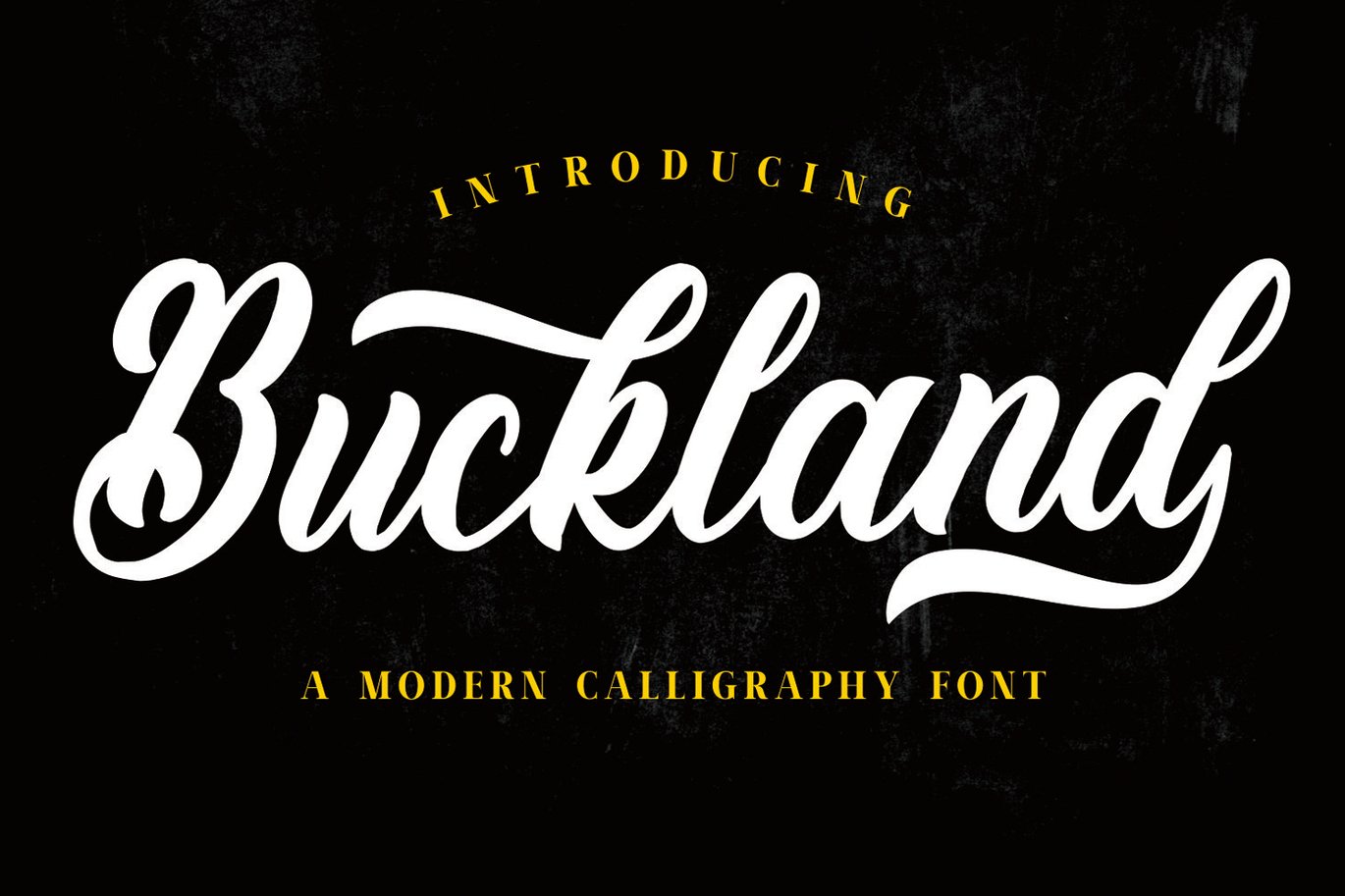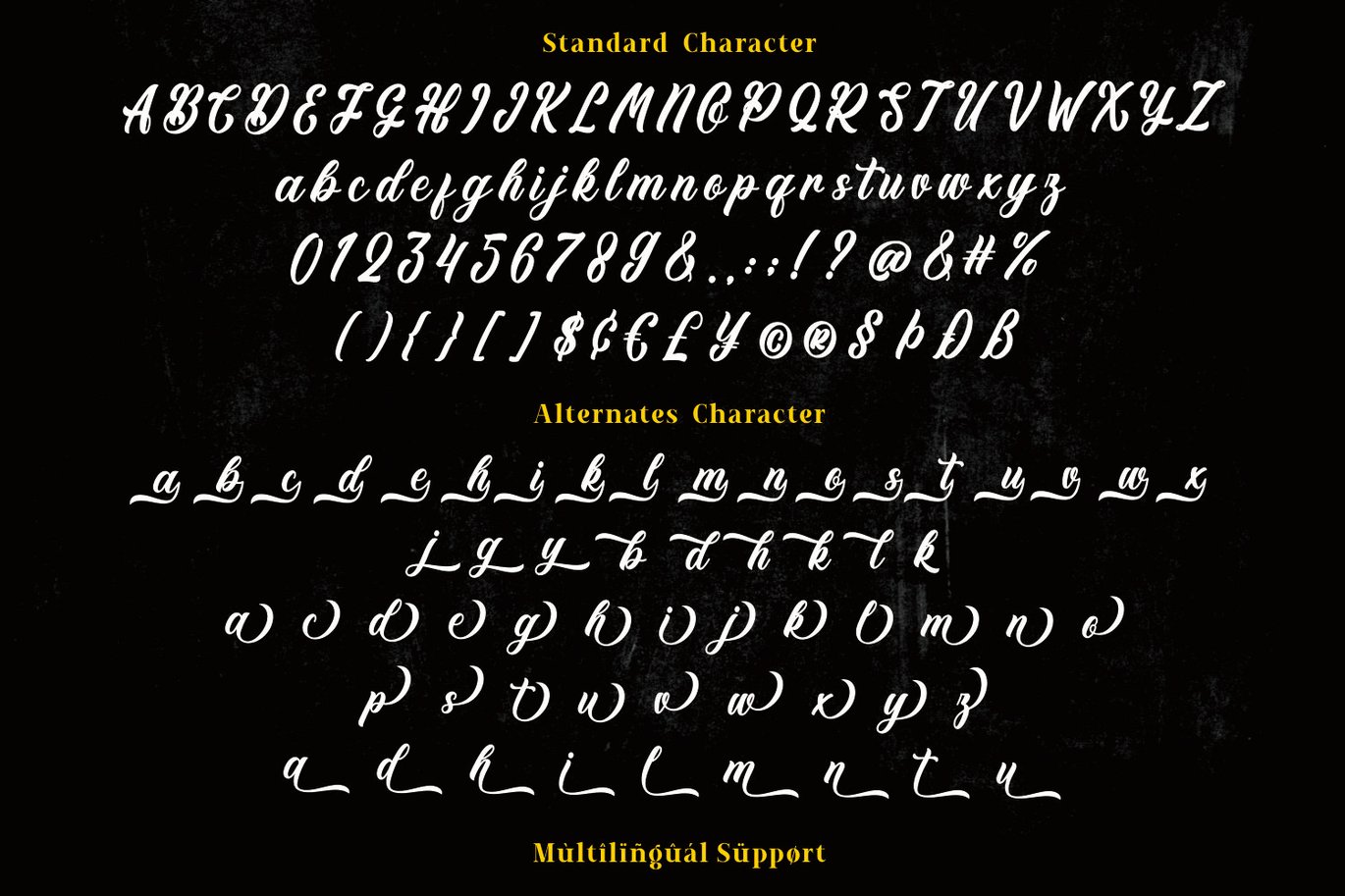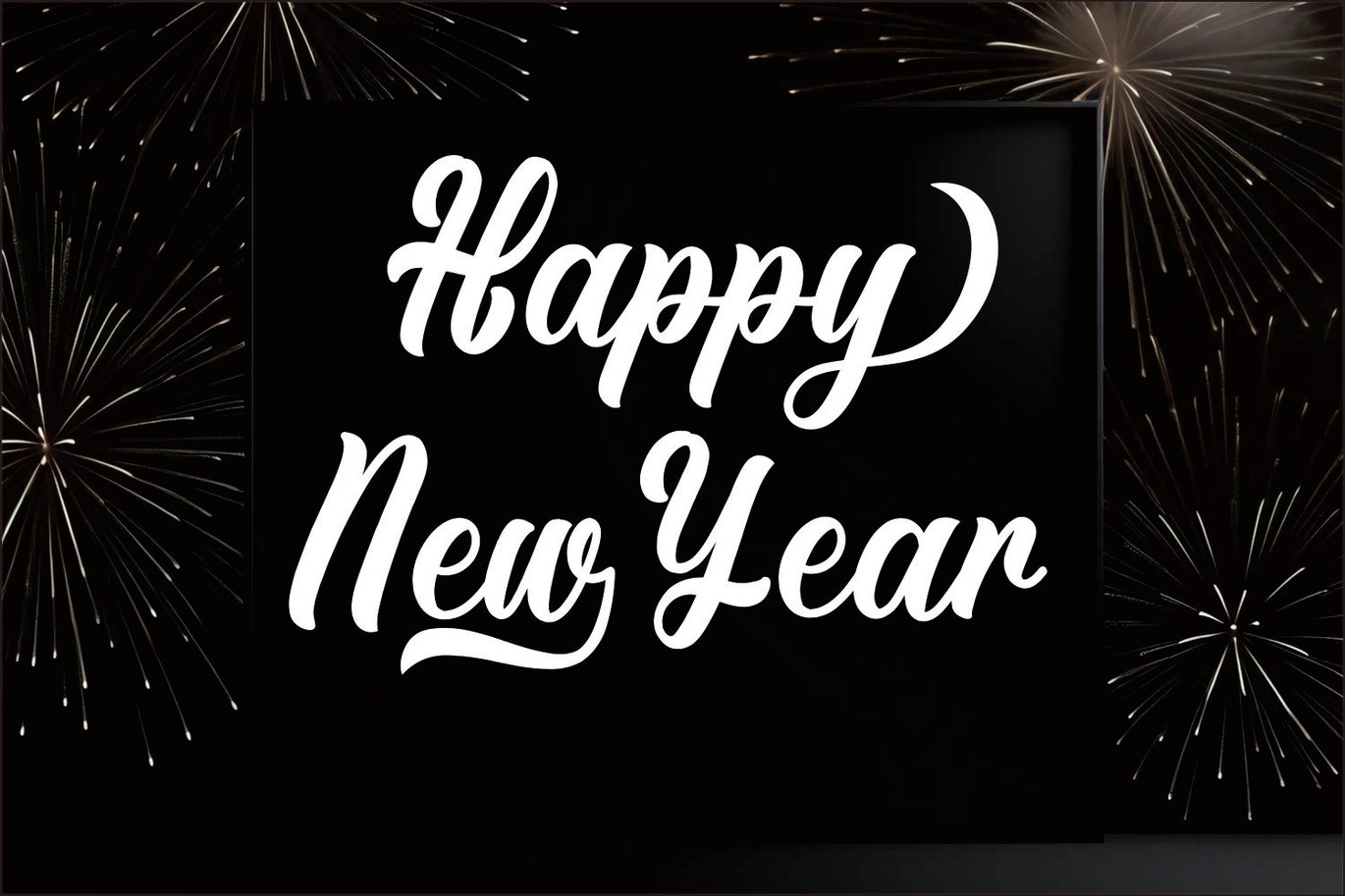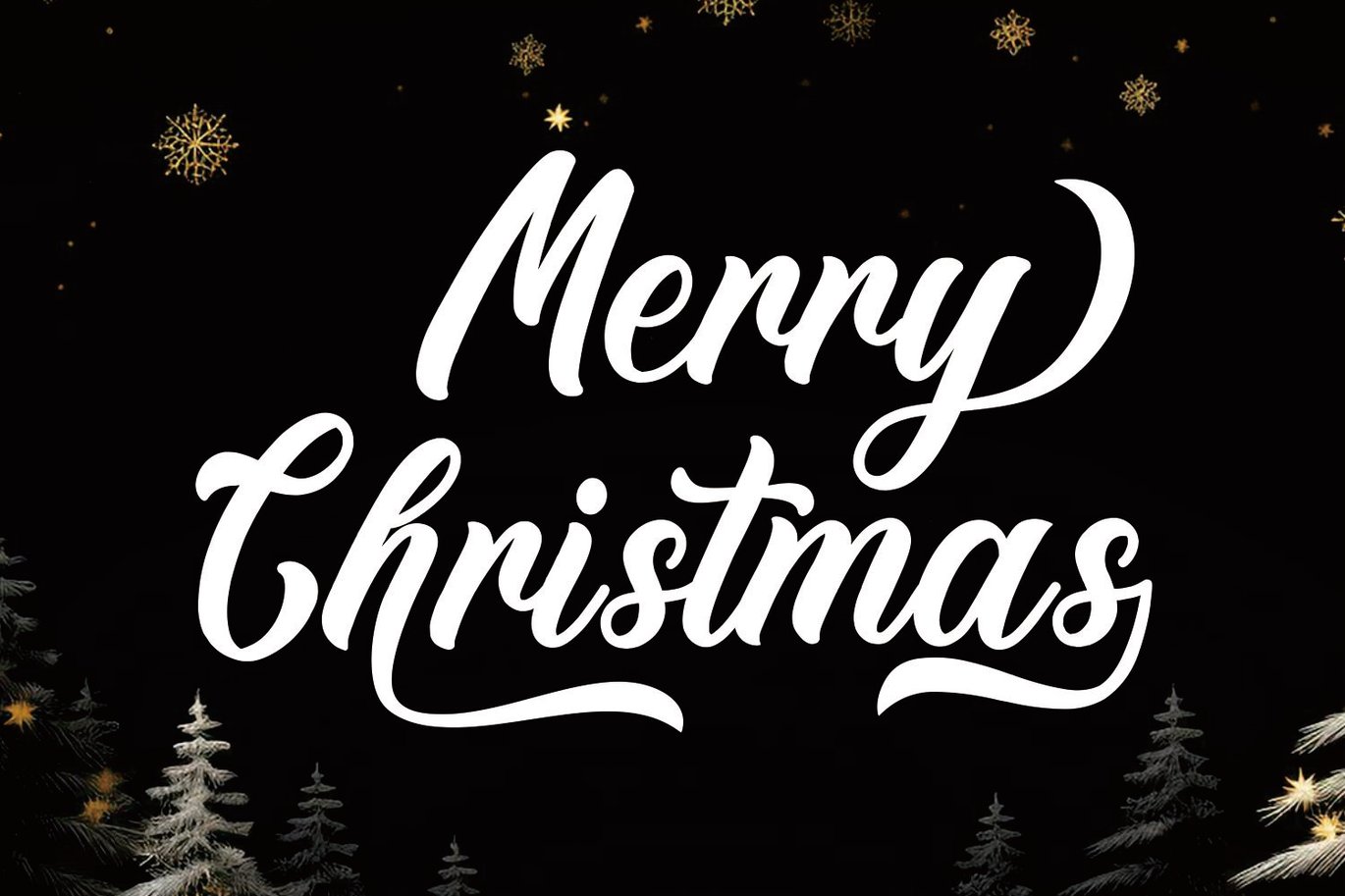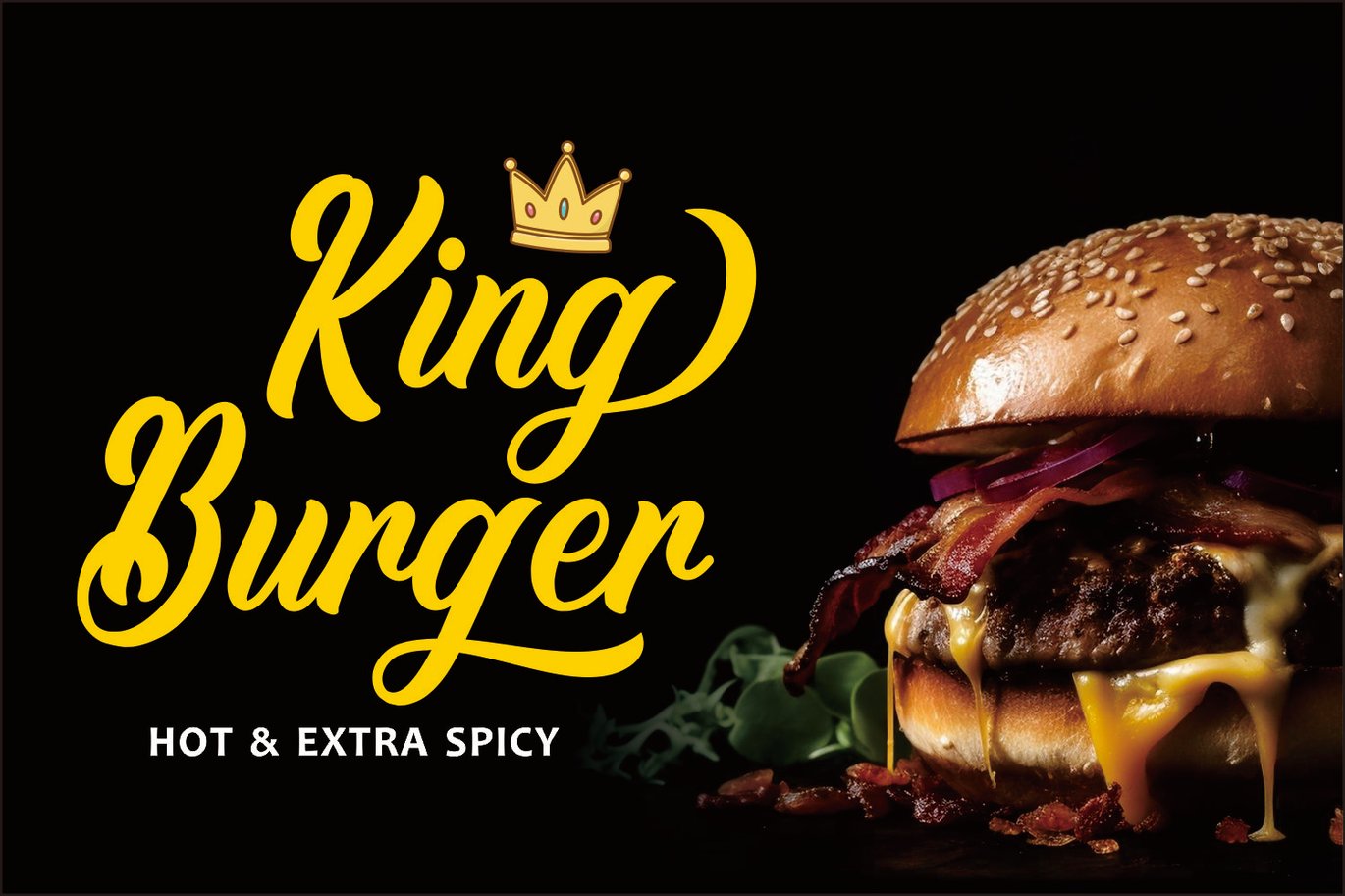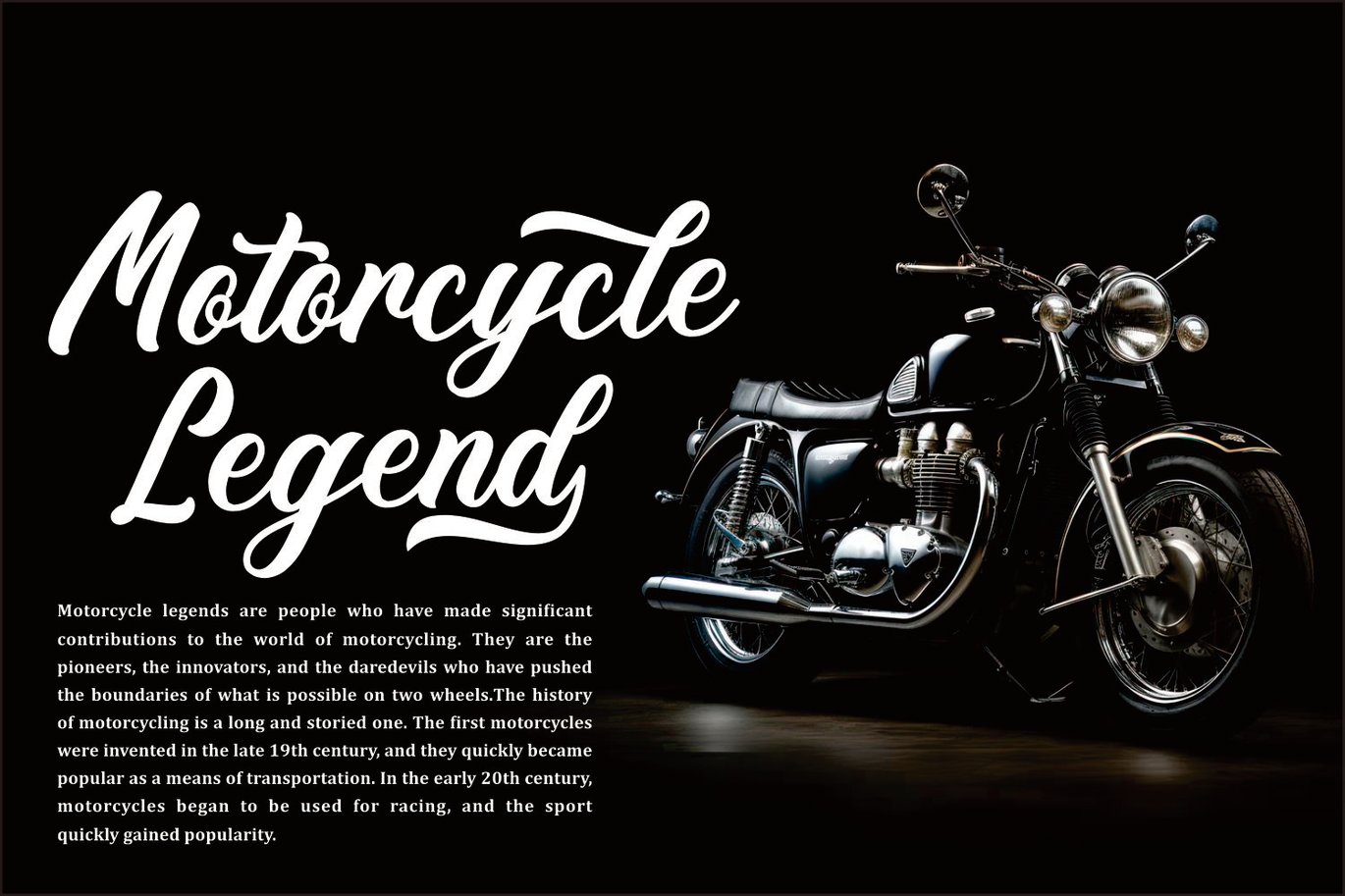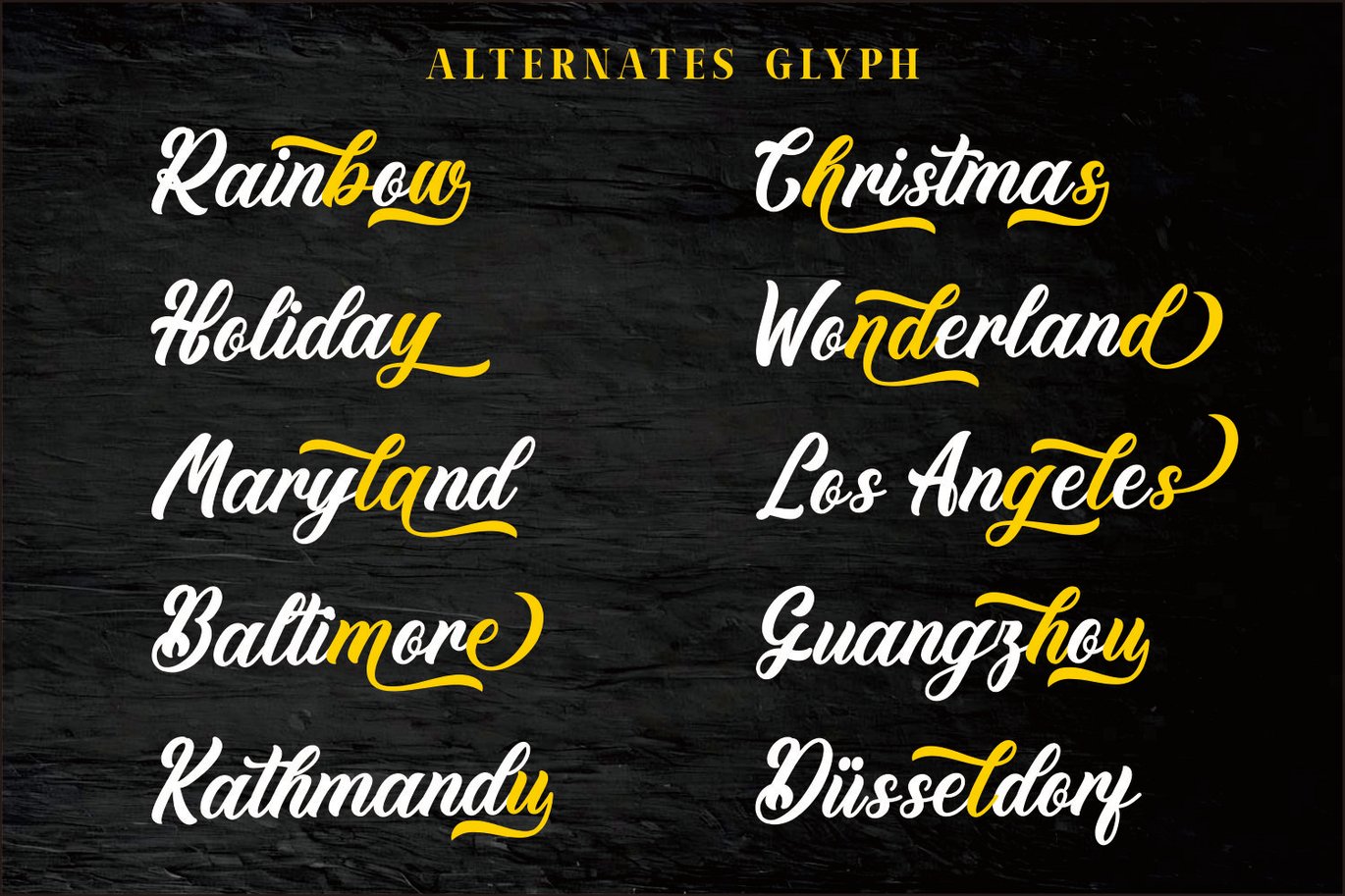
Buckland – Vintage Font
Introducing Buckland Font, a captivating blend of retro and vintage aesthetics infused with classic handwritten script style. Perfect for crafting timeless logos, evoking nostalgia with retro-themed writings, and adding a touch of vintage charm to your embroidery projects. Buckland Font effortlessly captures the essence of bygone eras, making it an ideal choice for Thanksgiving greetings, festive Christmas designs, and crafting personalized letterings that exude warmth and character.
Embrace the allure of yesteryears with Buckland Font and elevate your designs with its authentic retro appeal. Whether you’re crafting a nostalgic logo, adding a vintage touch to your holiday greetings, or embarking on a creative journey of craft lettering, this font offers endless possibilities. Don’t miss out on the opportunity to infuse your projects with timeless elegance and vintage flair. Download Buckland Font today and embark on a journey to rediscover the charm of classic handwritten script in a retro-inspired style!
Transform your creations into timeless masterpieces with Buckland Font. Embrace the essence of retro and vintage aesthetics to craft captivating designs that stand the test of time. Elevate your projects with the charm of classic handwritten script, perfect for adding a touch of nostalgia to Thanksgiving greetings, festive Christmas designs, and exquisite craft letterings. Seize the opportunity to create something truly remarkable – download Buckland Font now and let your creativity flourish!